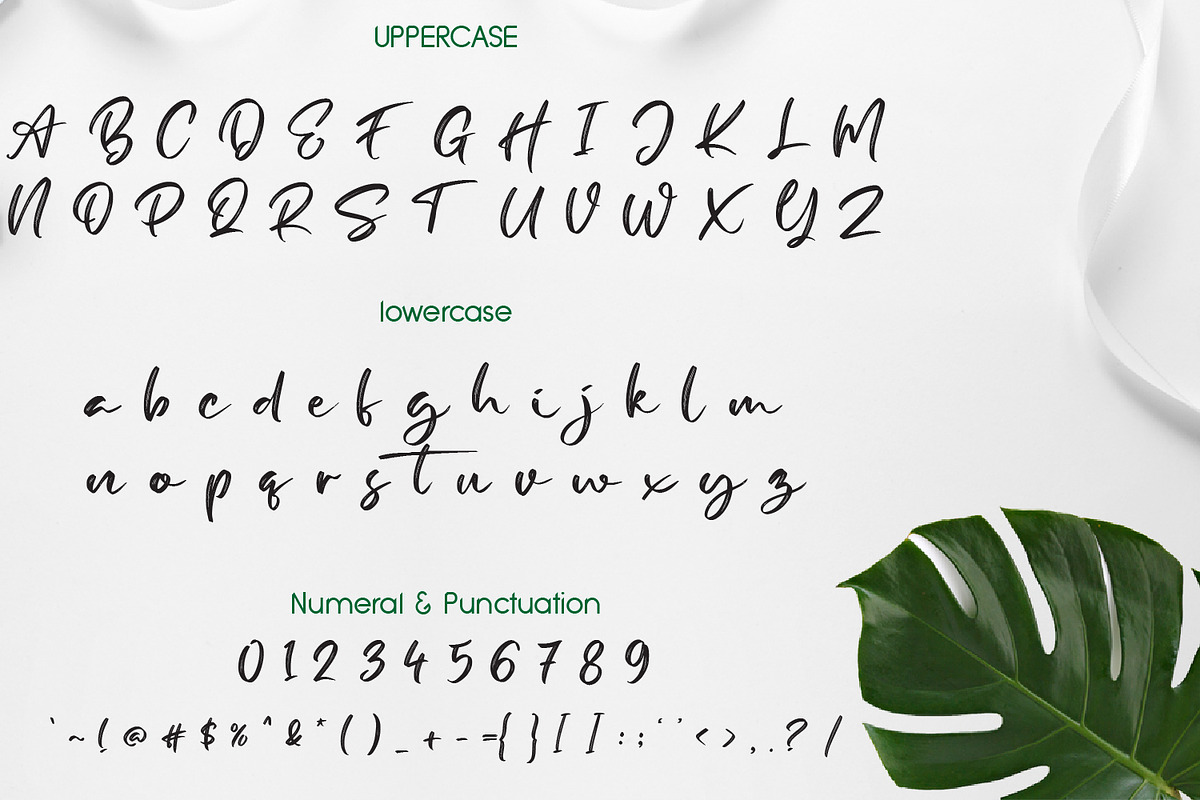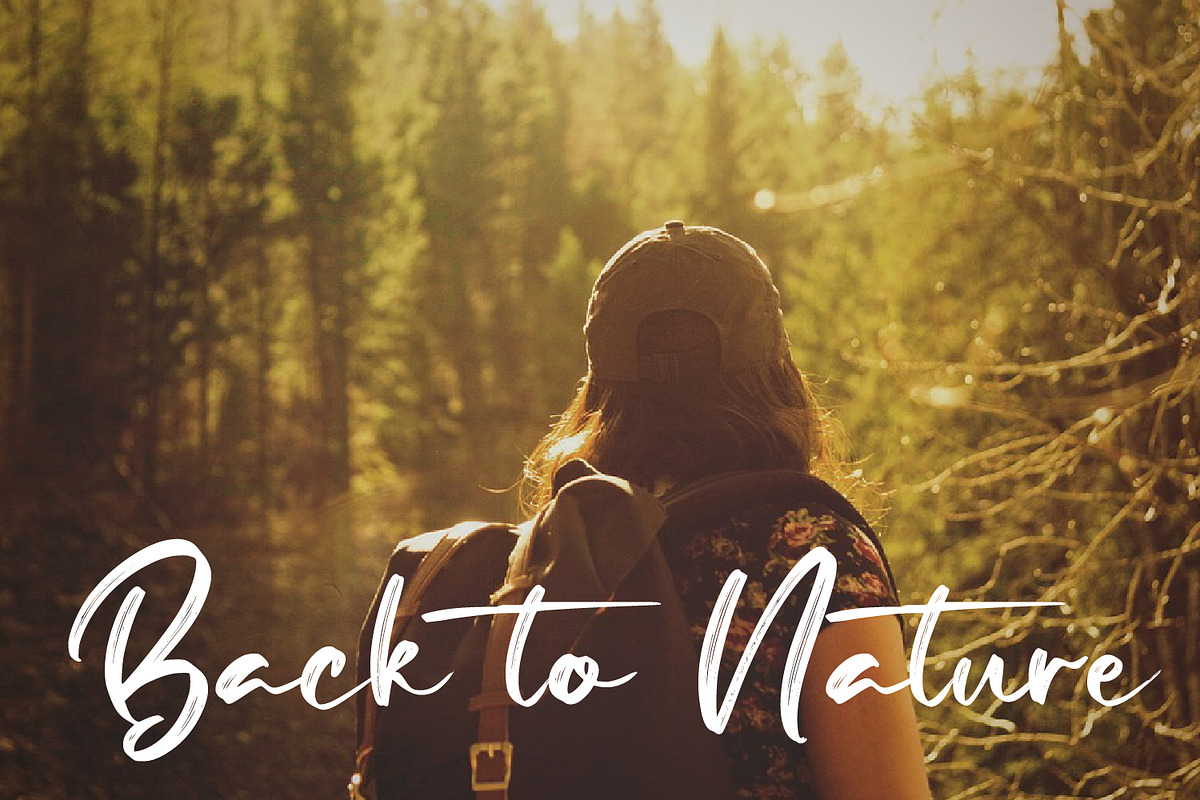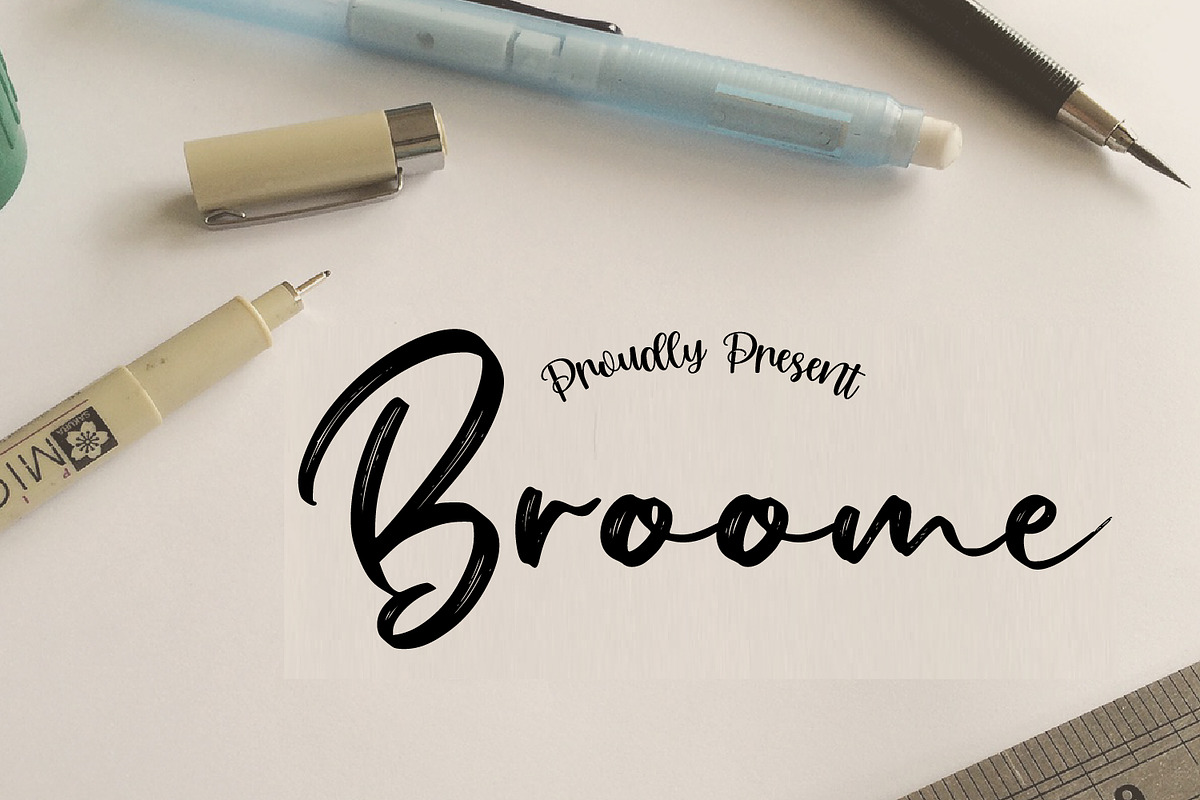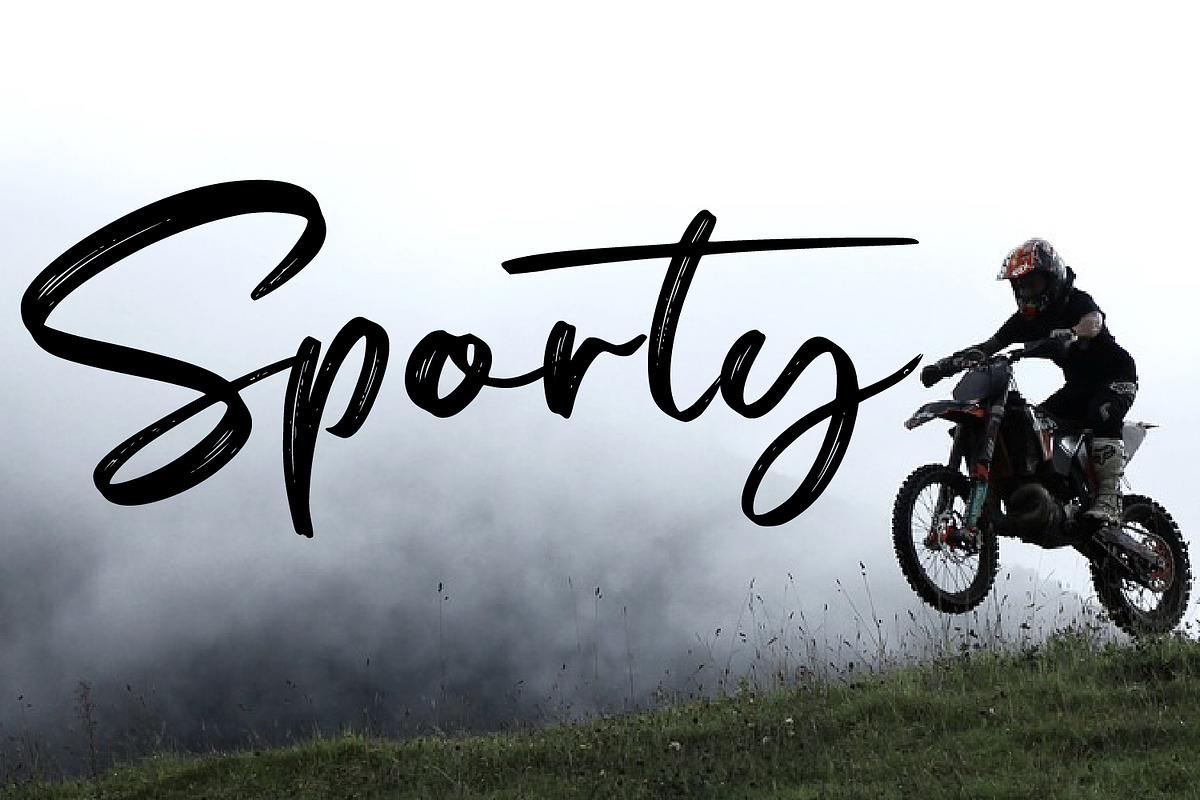
Broome Brush
Broome is a minimal brush style handwritten font. Simple and easy to use, this font will be very beautiful if you mix it with your various craft designs.